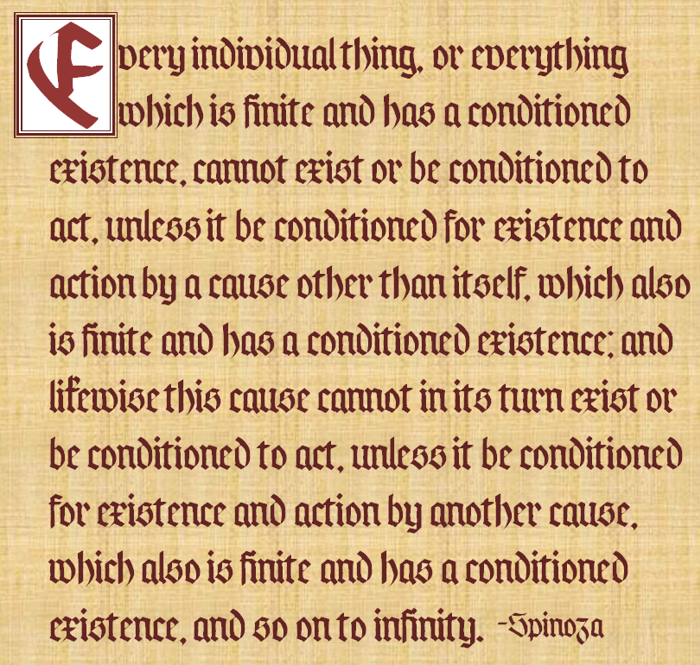
Koch Black Font
Made with FontCreator 6. The letters weren't designed by me--they were designed by Rudolph Koch in the 1920s--but I did scan them in and edit them to be less deteriorated, resize them, make new letters, etc. I got it from the Calligrapher's Bible by David Harris. This is my first full font made with a font editor other than FontStruct.
A bad simulation of Koch's Fractur. Say, there is no harmony between a and c if standing within the proximity of each other.